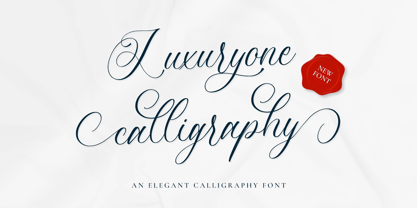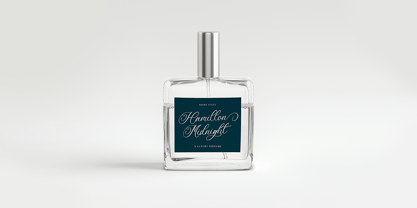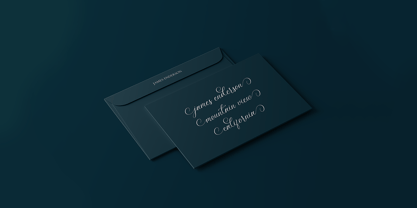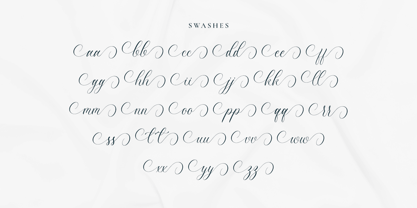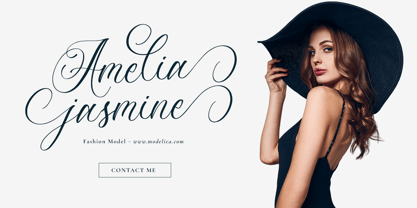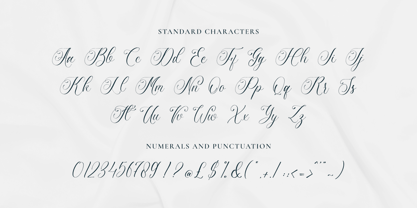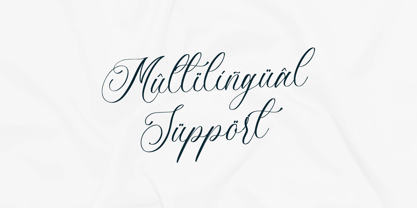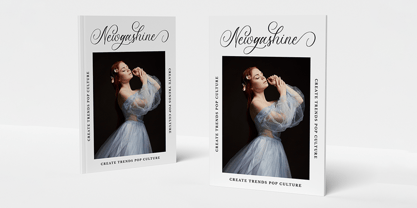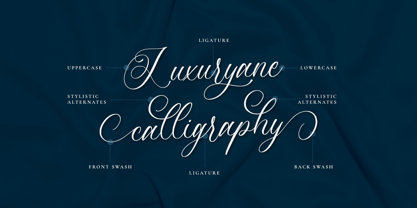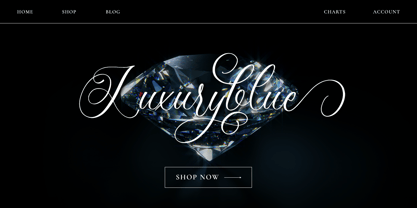
Luxuryone Calligraphy
by Rockboys Studio
The Luxuryone Calligraphy Font Family was designed by Hayinah and published by Rockboys Studio. Luxuryone Calligraphy contains 1 styles.
Luxuryone Calligraphy is a lovely and delicate script font that exudes elegance and class. This font was particularly crafted for those who need a beautiful and refreshing look to their designs. Fall in love with it and bring your projects to the highest levels!